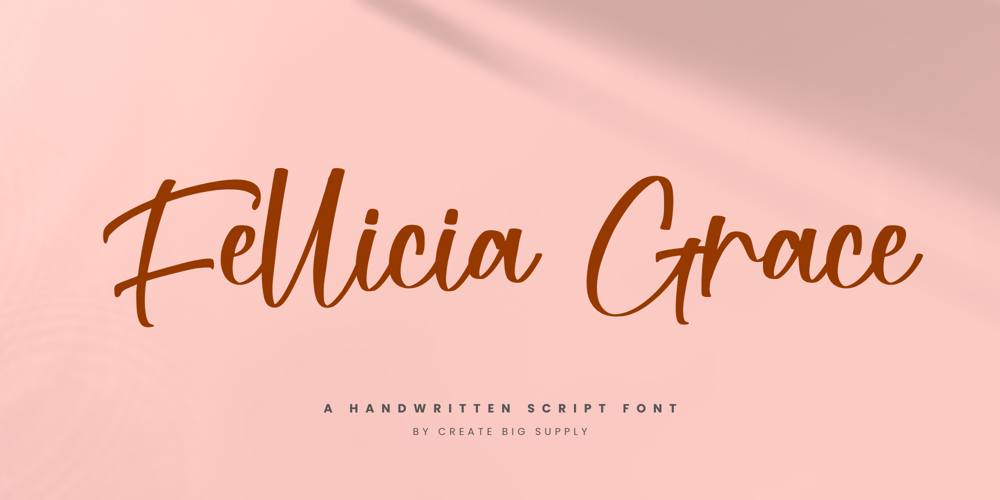
Fellicia Grace Font Family was designed by Irpan Maulana and published by Create Big Supply. Fellicia Grace contains 1 styles and family package options. Introducing Brenatte Script, a luxurious and exquisite handwriting font that adds a touch of elegance to your design projects. This script font embodies natural beauty and sophistication, perfect for creating stunning logos, branding materials, invitations, and more. With its impressive features like uppercase and lowercase letters, numbers, and punctuation, Brenatte Script offers versatility and creative possibilities. It supports multiple languages, ensuring seamless communication across different regions. The ligatures and PUA encoding enhance the overall aesthetic, providing a seamless and smooth writing experience. Enhance your designs with the opulence of Brenatte Script Luxury Handwriting Font